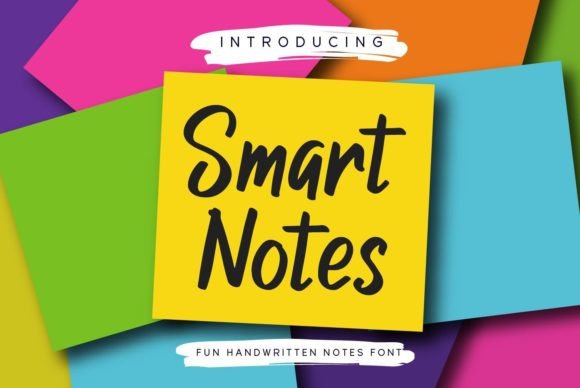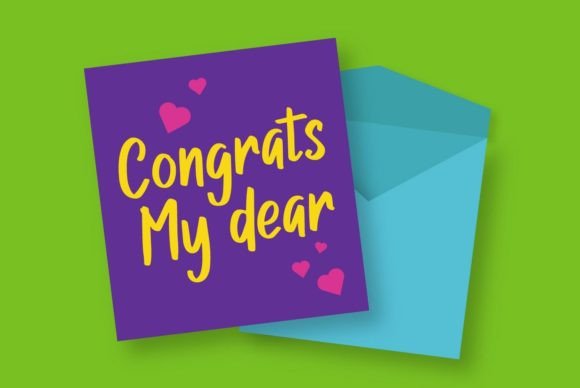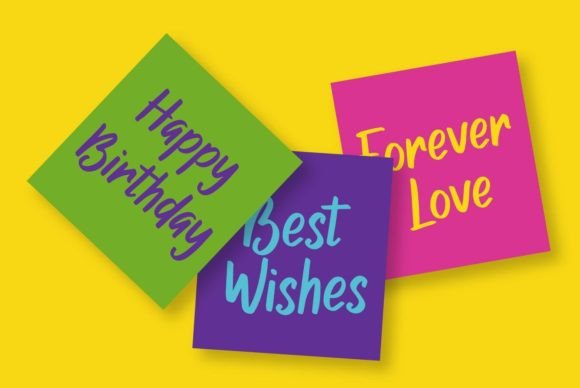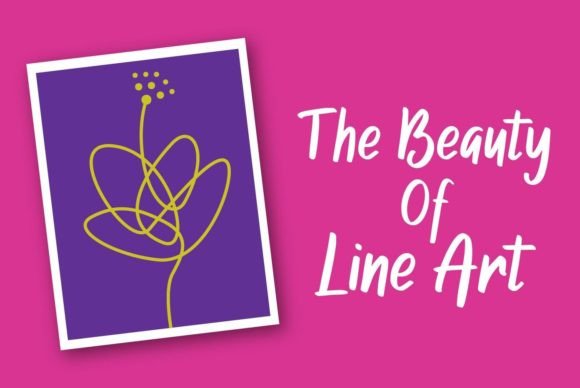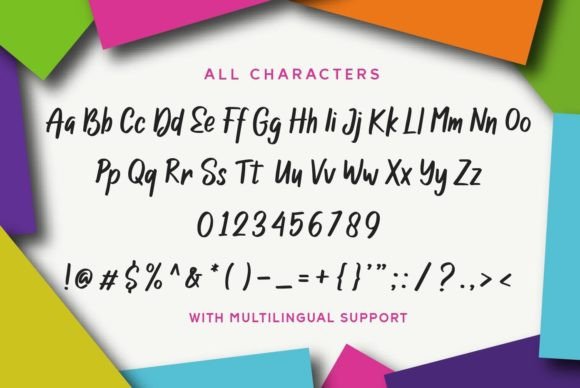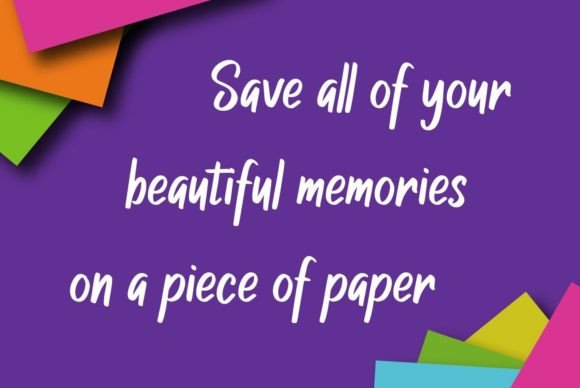
About Smart Notes Font
Smart Notes is a delicate and well-rounded handwritten font, perfect for crafty projects that need authentic typography! Use it for wedding invitations, birthday cards, personal branding, elegant logos, and more, and your designs will stand out.